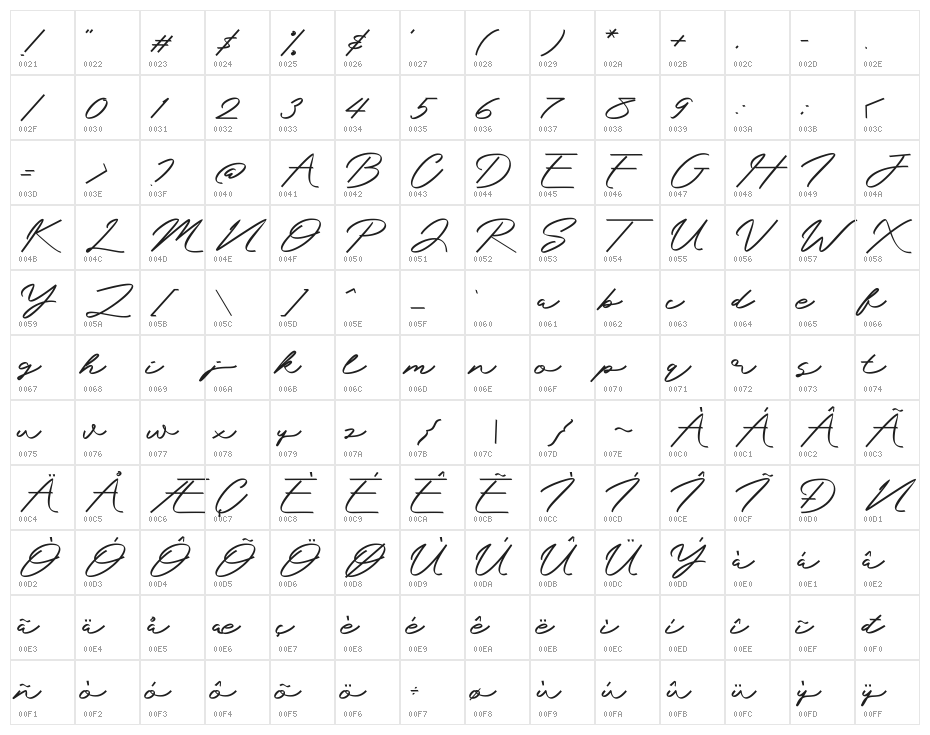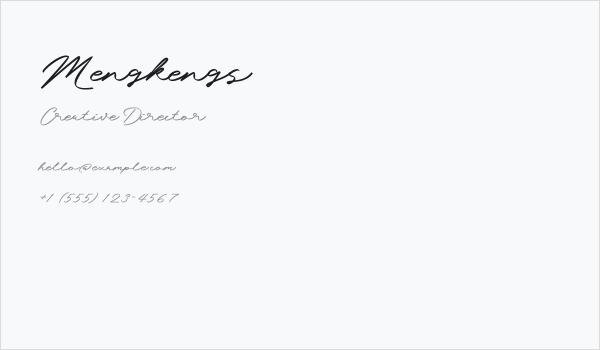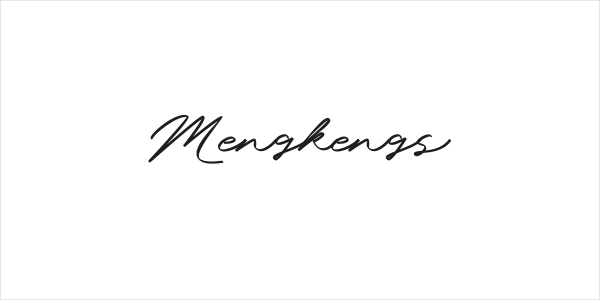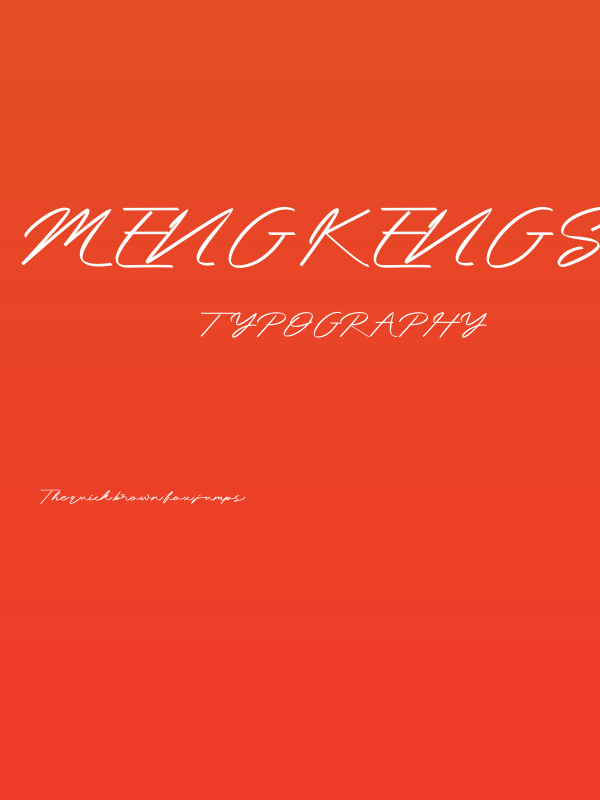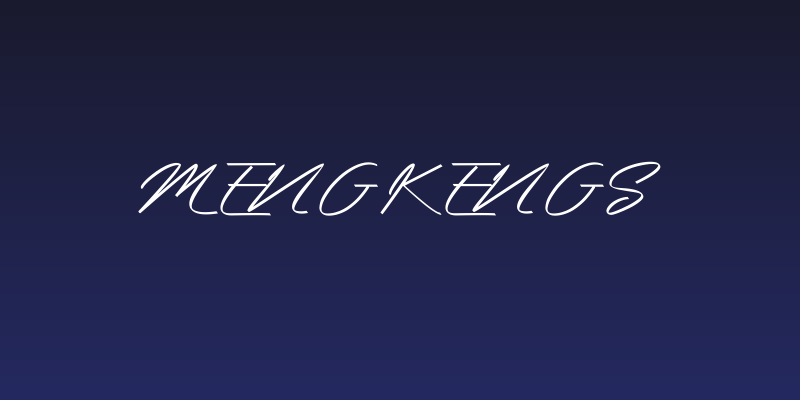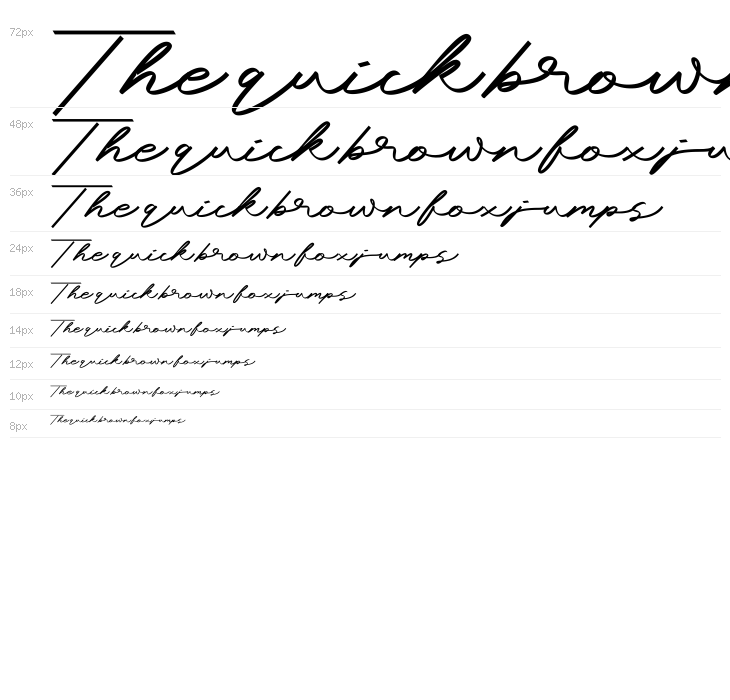
Mengkengs Font
Mengkengs Description
This font features a flowing, cursive style with elegant, sweeping strokes that mimic the fluidity of handwriting. The uppercase letters are slightly more elaborate, with extended loops and curves, while the lowercase letters maintain a consistent, smooth flow. The numerals and special characters are designed to complement the overall script style, maintaining the same graceful curves and lines. This font exudes a sense of sophistication and personal touch, making it ideal for projects that require a handwritten aesthetic.
Overall StyleElegant, Handwritten
Use CaseLogos, Invitations, Personal Branding
Proposed ProjectsIdeal for wedding invitations, greeting cards, personal branding, and any project requiring a handwritten touch.